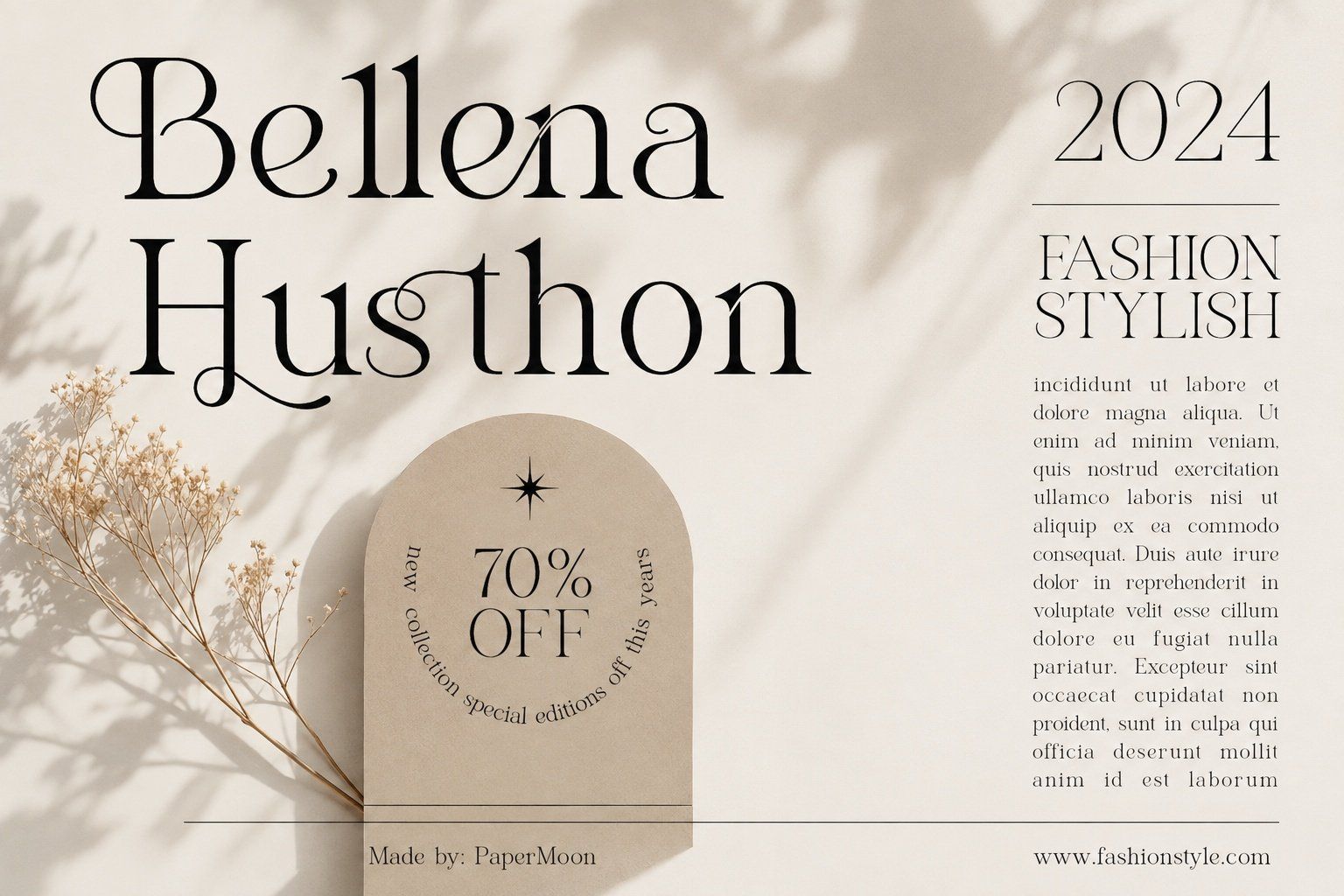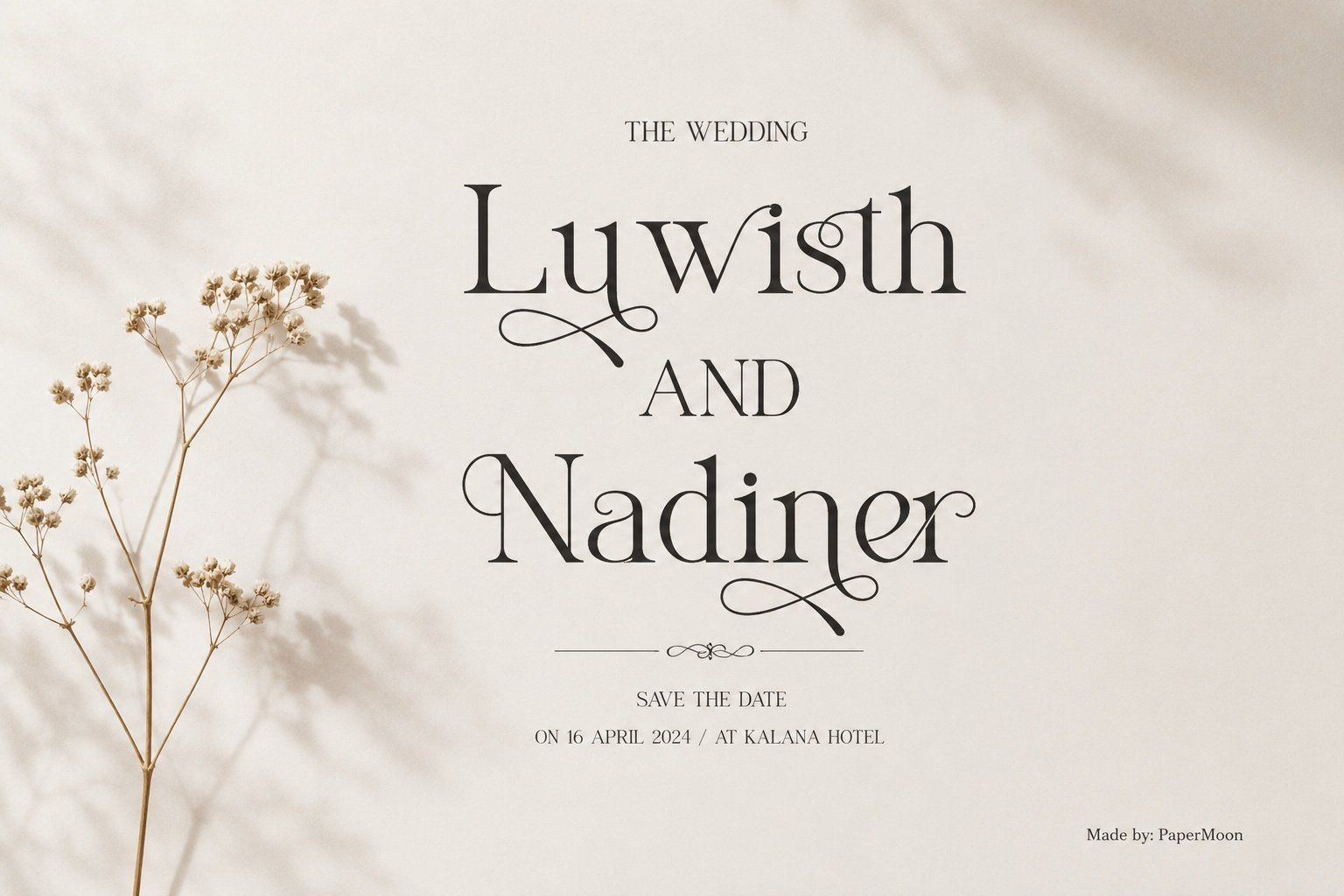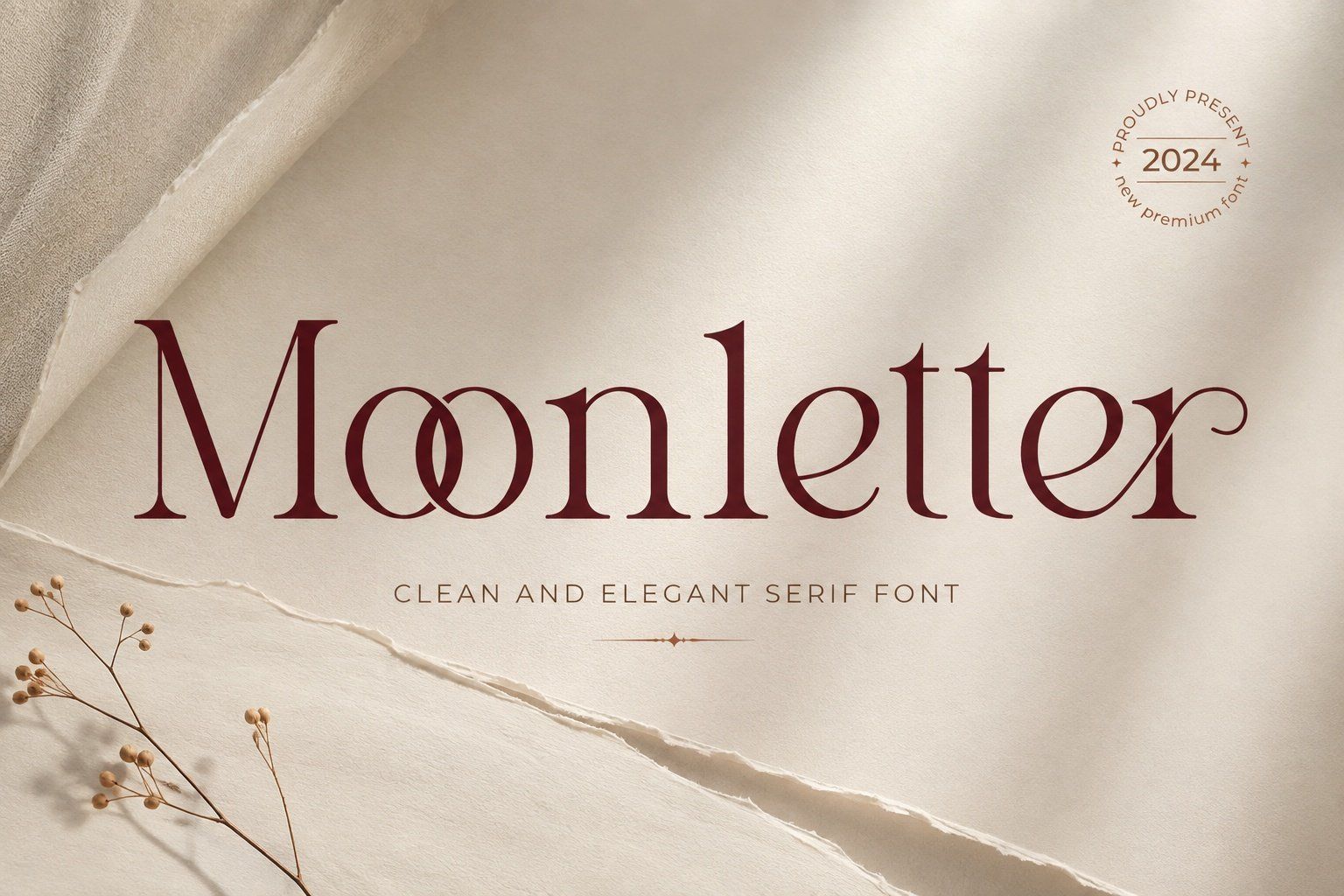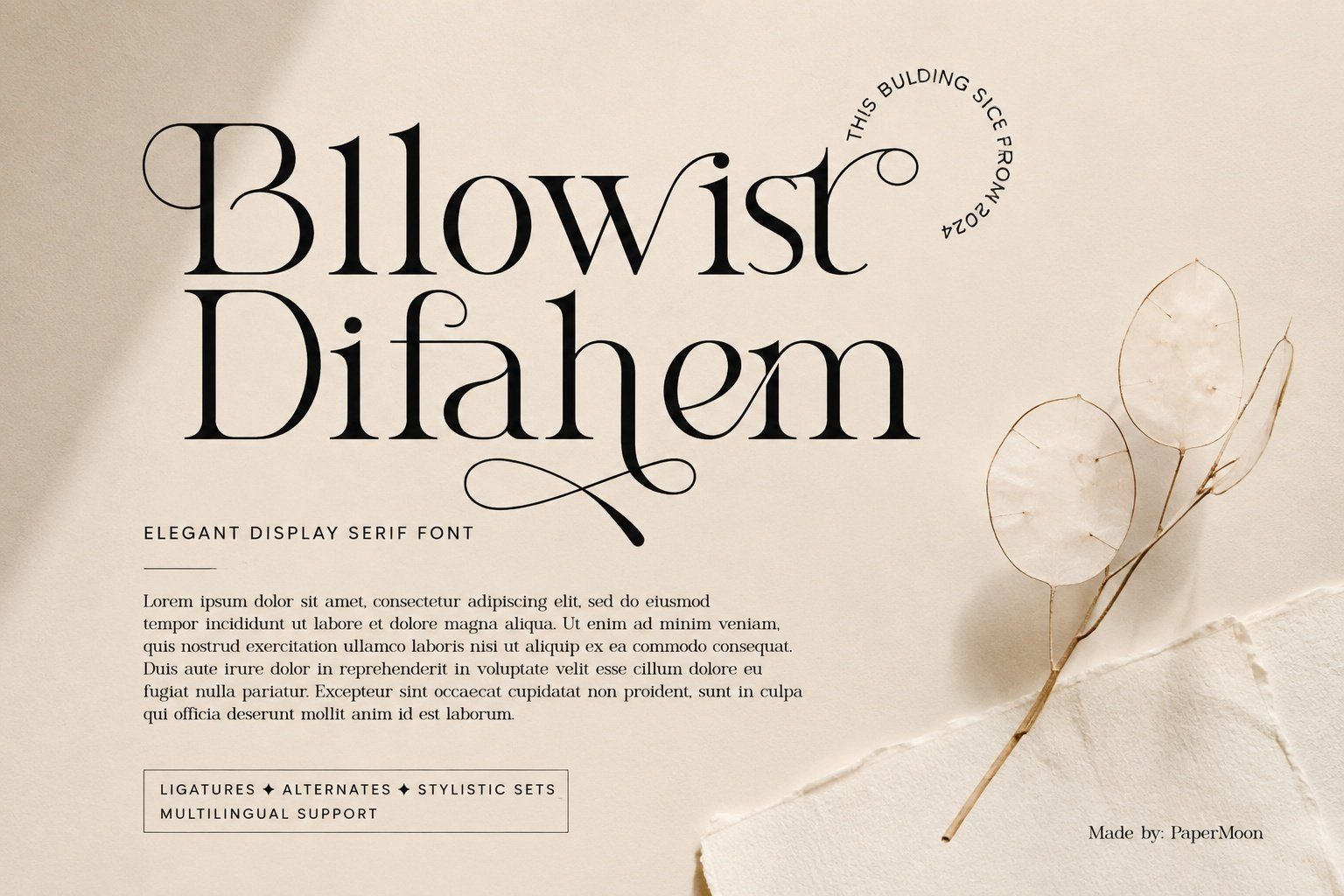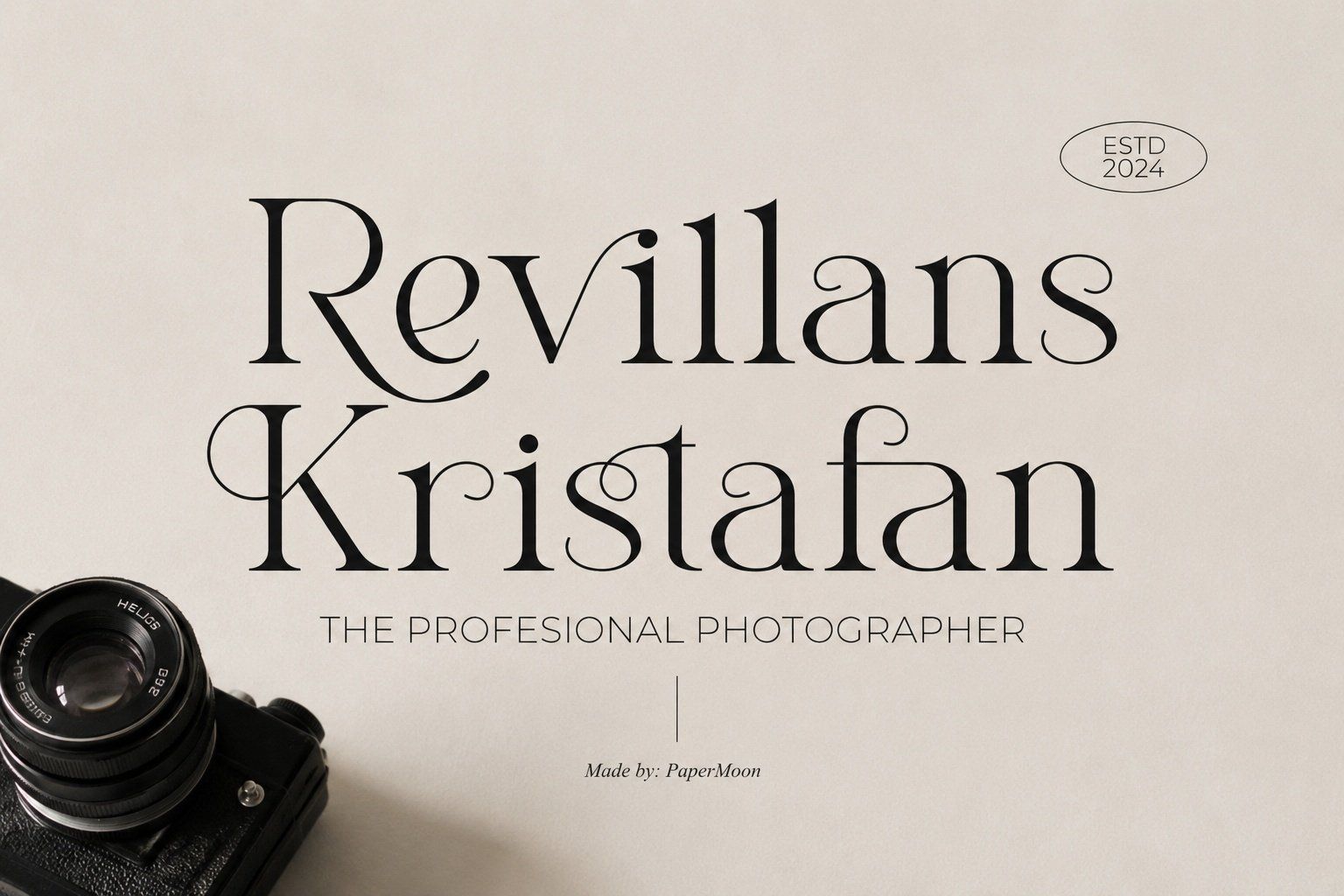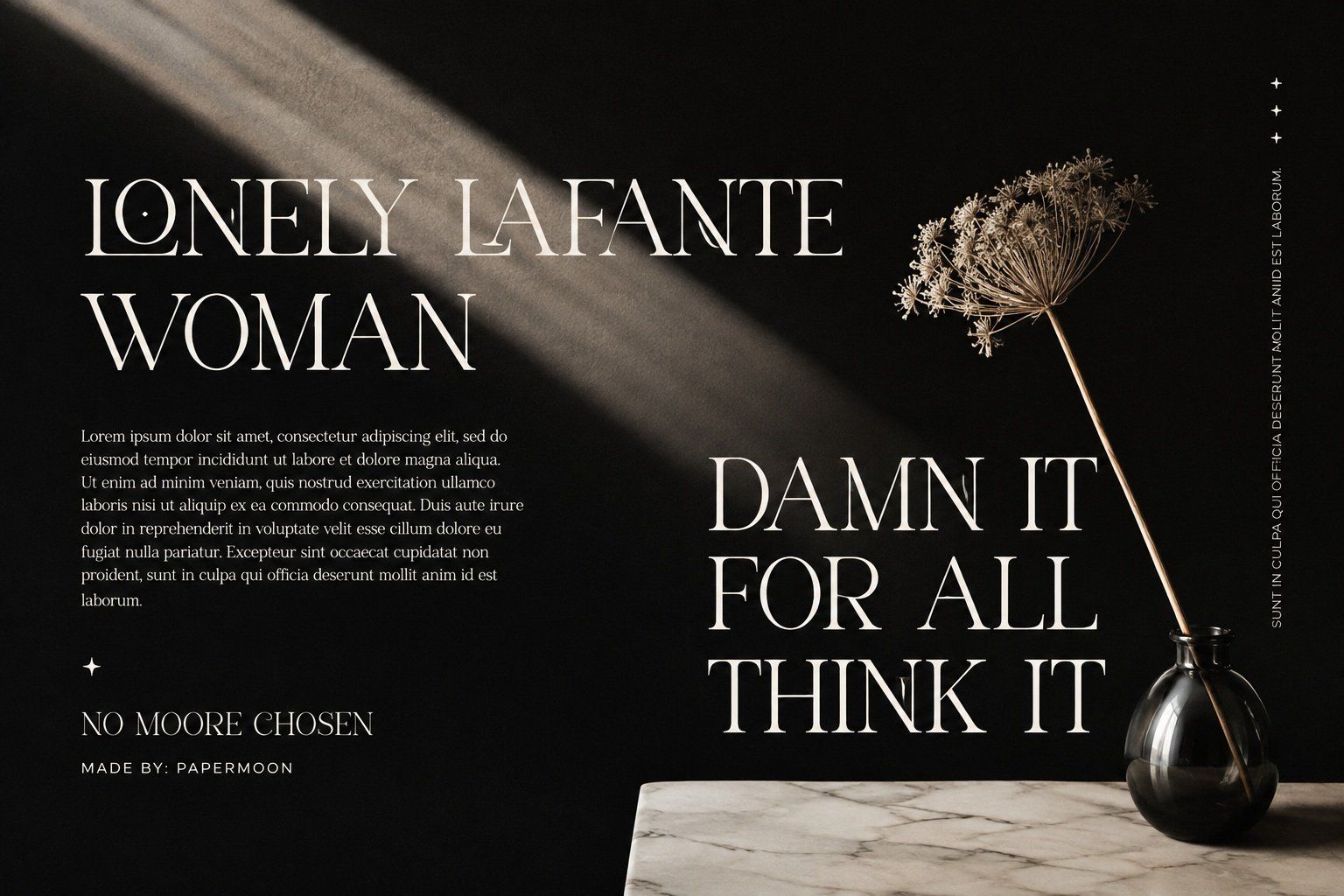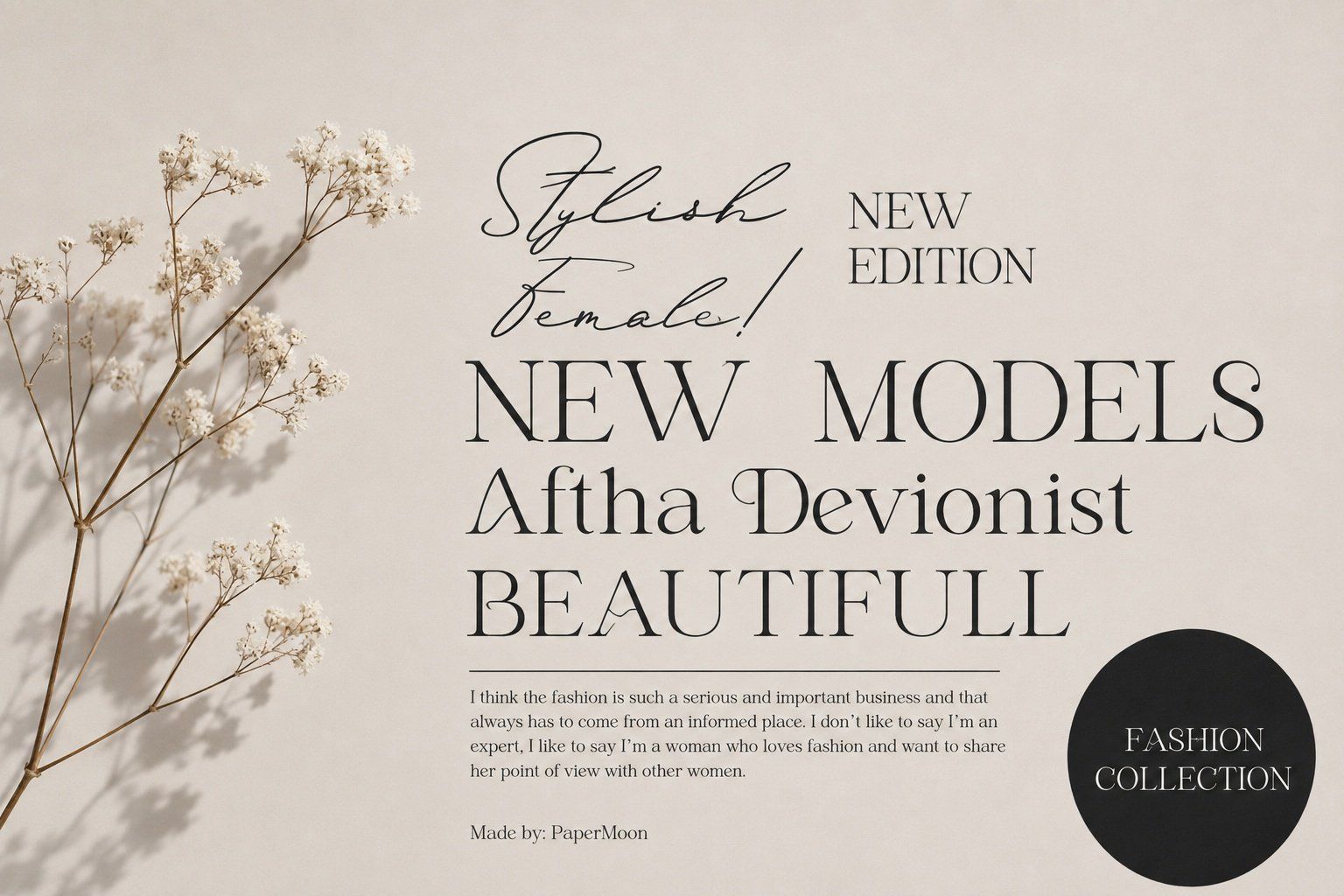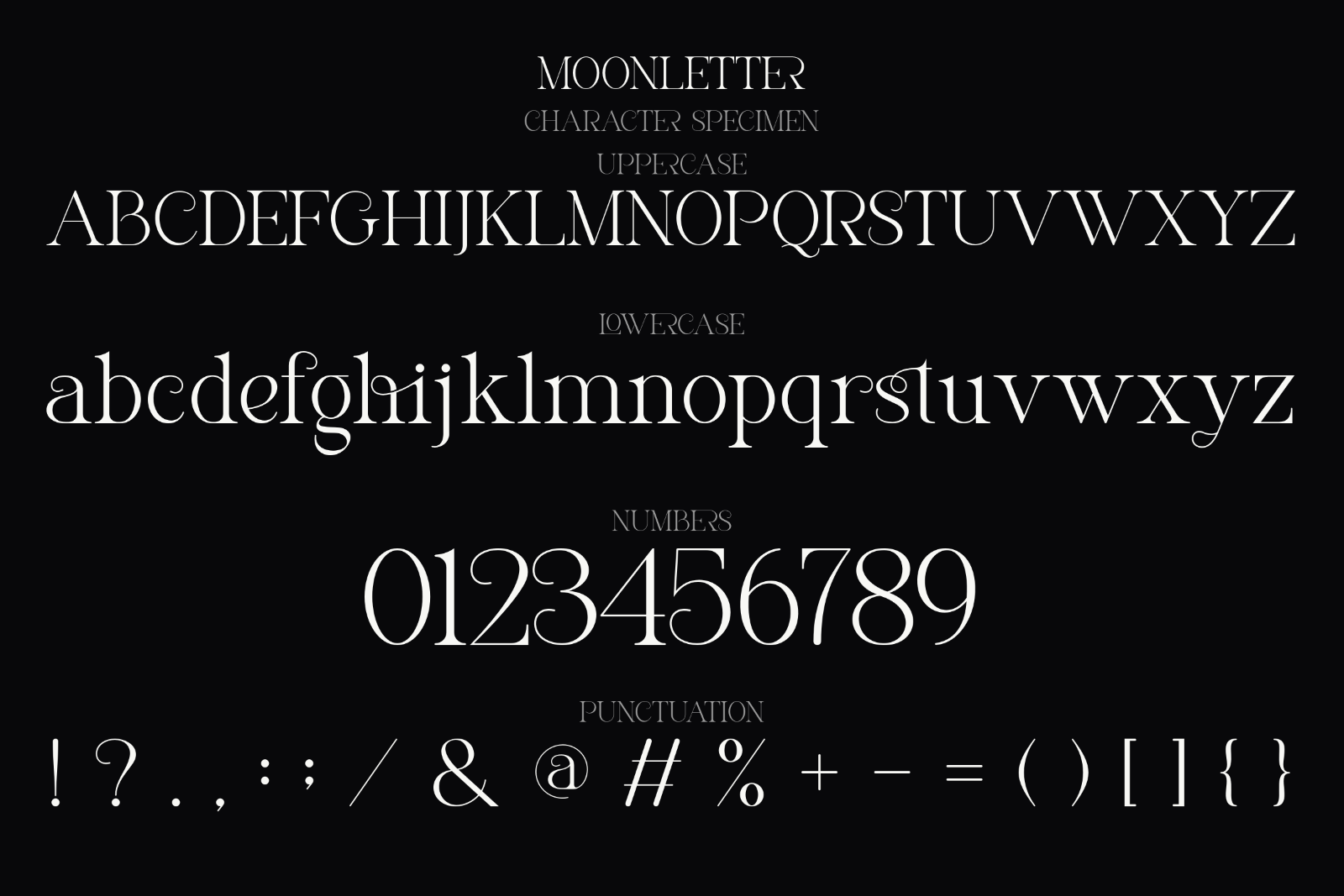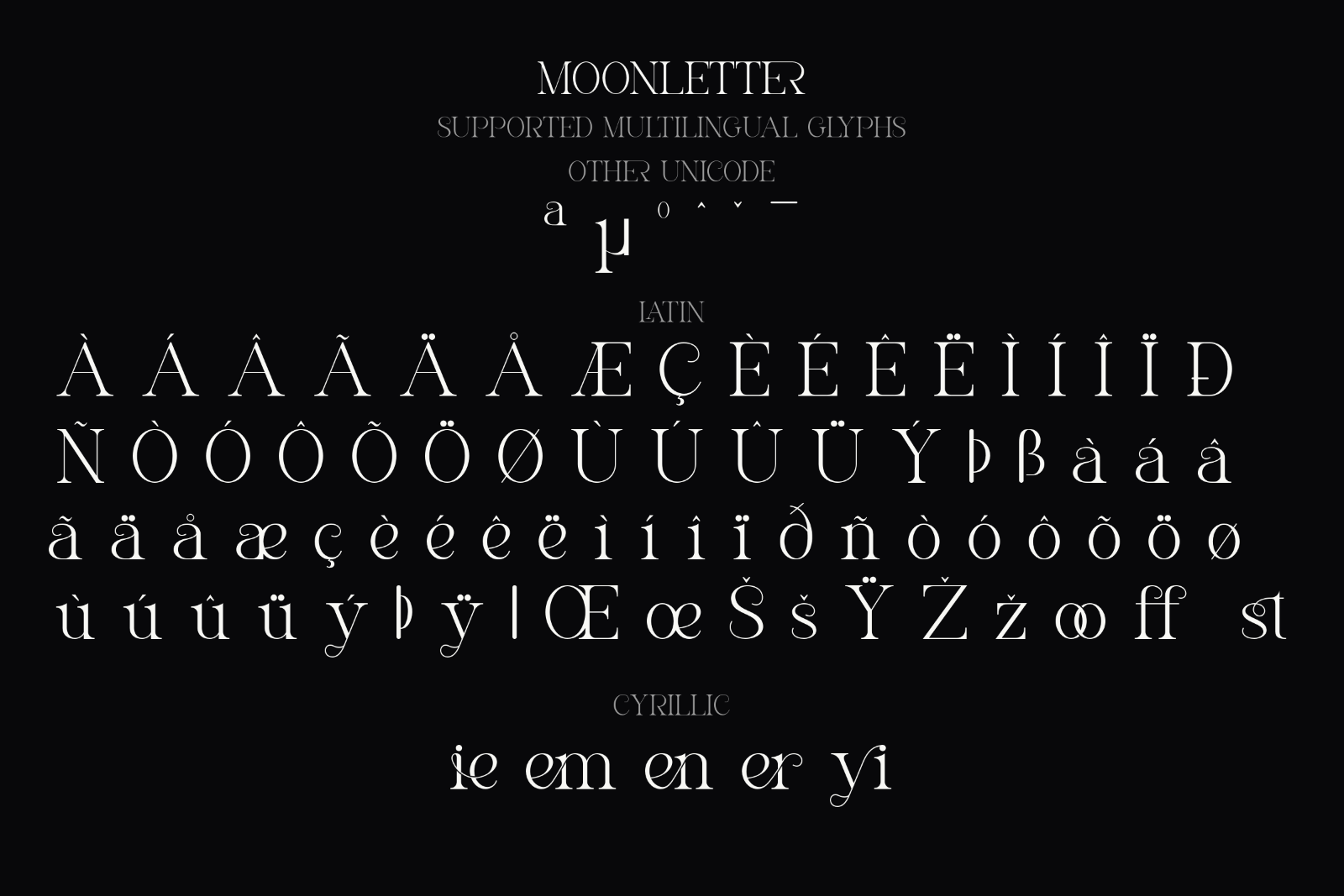
Moonletter is an elegant luxury serif font that brings sophistication, cohesion, and stylish detail to invitations, logos, titles, and brand designs.
Moonletter is designed for polished projects that need a refined and memorable typographic presence. Its elegant serif forms create a sophisticated, cohesive look, while stylish inflections and ligatures add distinctive character to lettering.
• Invitation cards
• Company logos and brand names
• Movie titles and names
• Business cards
• Book titles
• Similar luxury, identity, and editorial designs
• Stylish inflections and ligatures
• Uppercase and lowercase letters
• Numbers and punctuation
Give invitations, identities, titles, and other sophisticated designs a cohesive luxury finish with Moonletter.